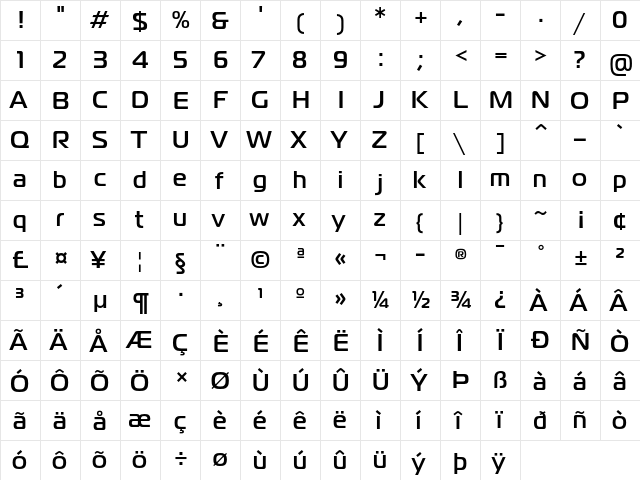
Magistral Bold
| Foundry | ParaType, Inc. |
| Designer | Andrey Kryukov and Dmitr Kirsanov |
Design Context for Magistral Typeface
Magistral takes a measured approach to typography — its balanced proportions and neutral character make it a reliable workhorse for both digital and print work. The heavy weight commands attention and anchors typographic hierarchies.